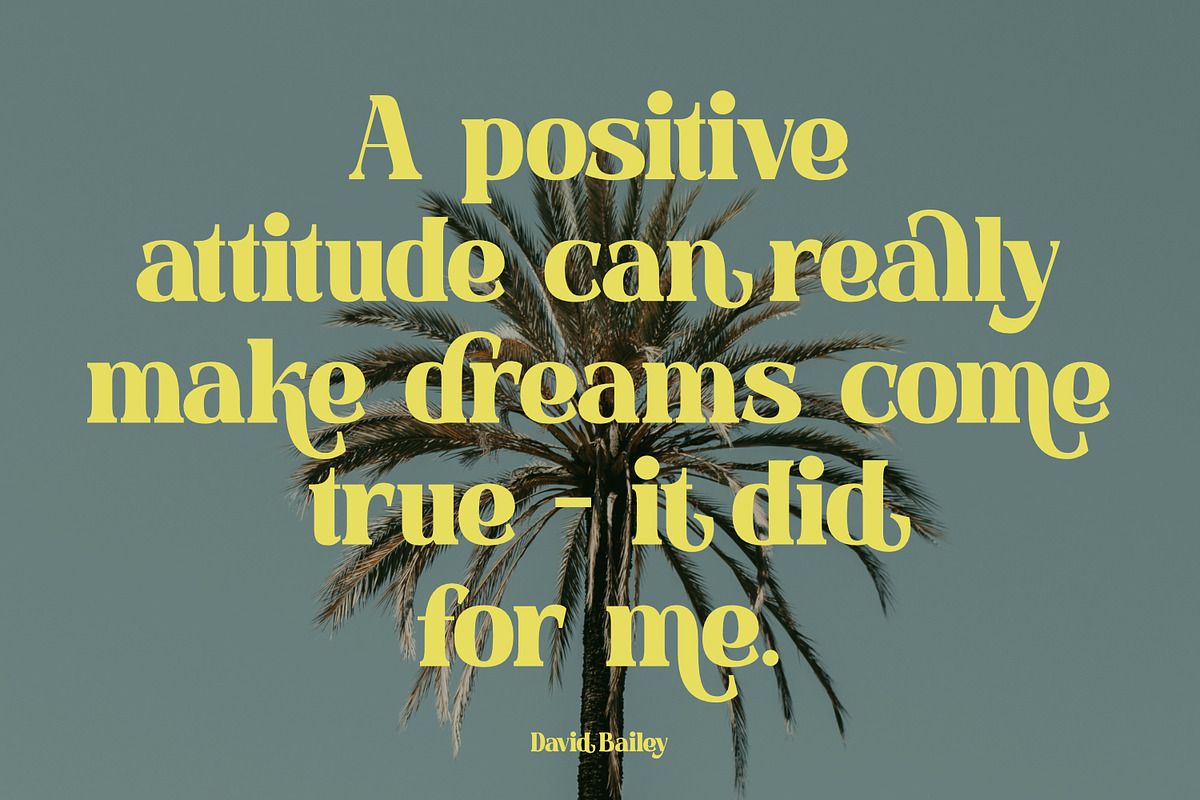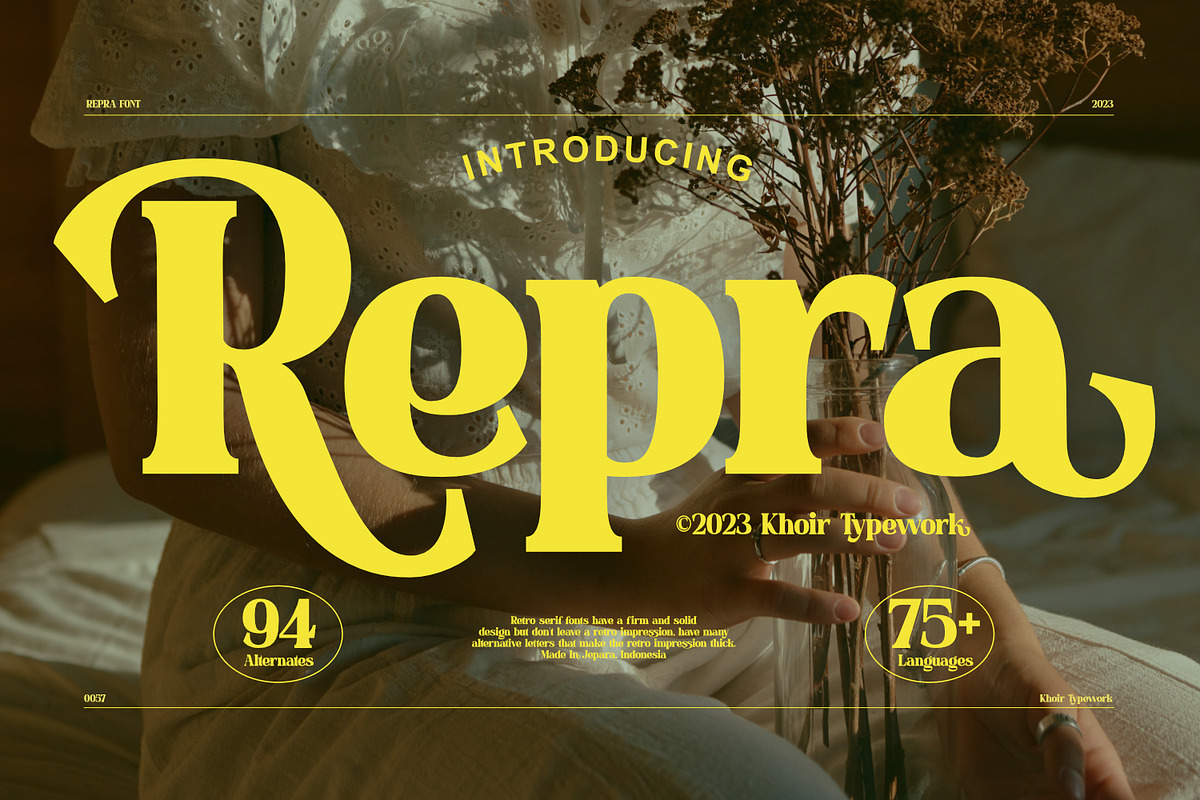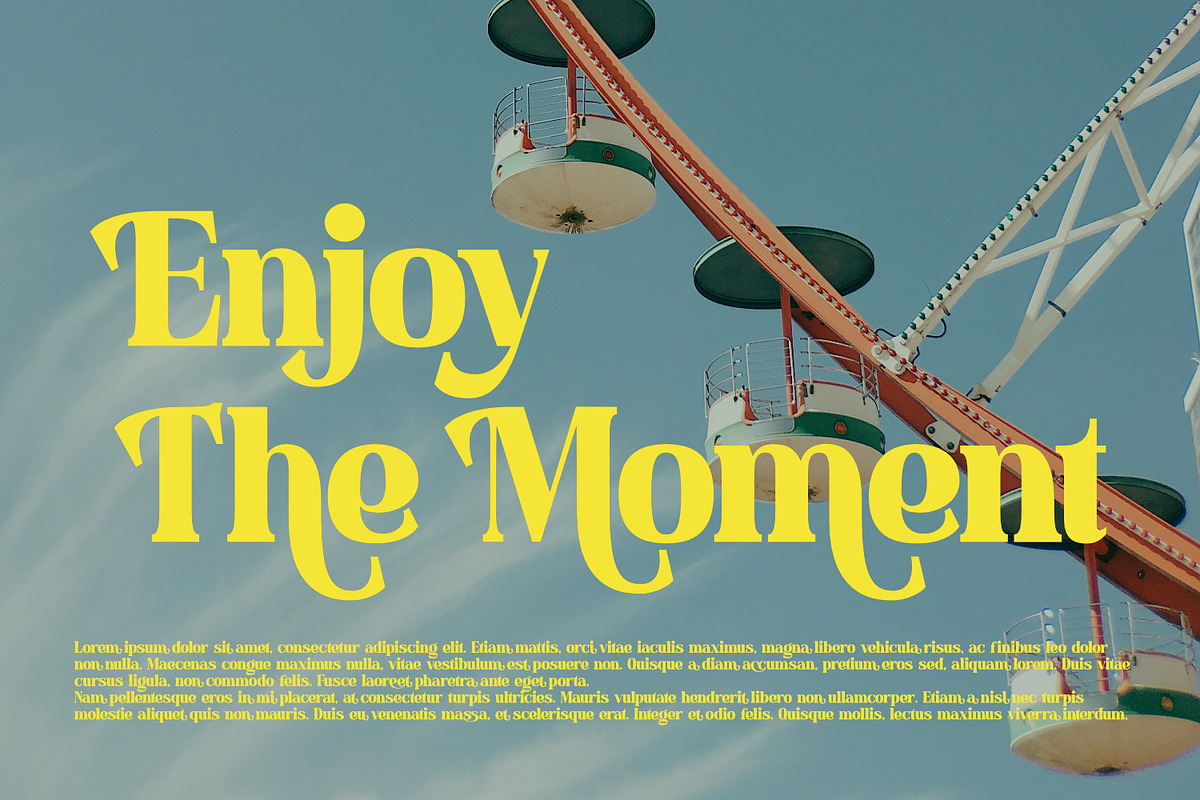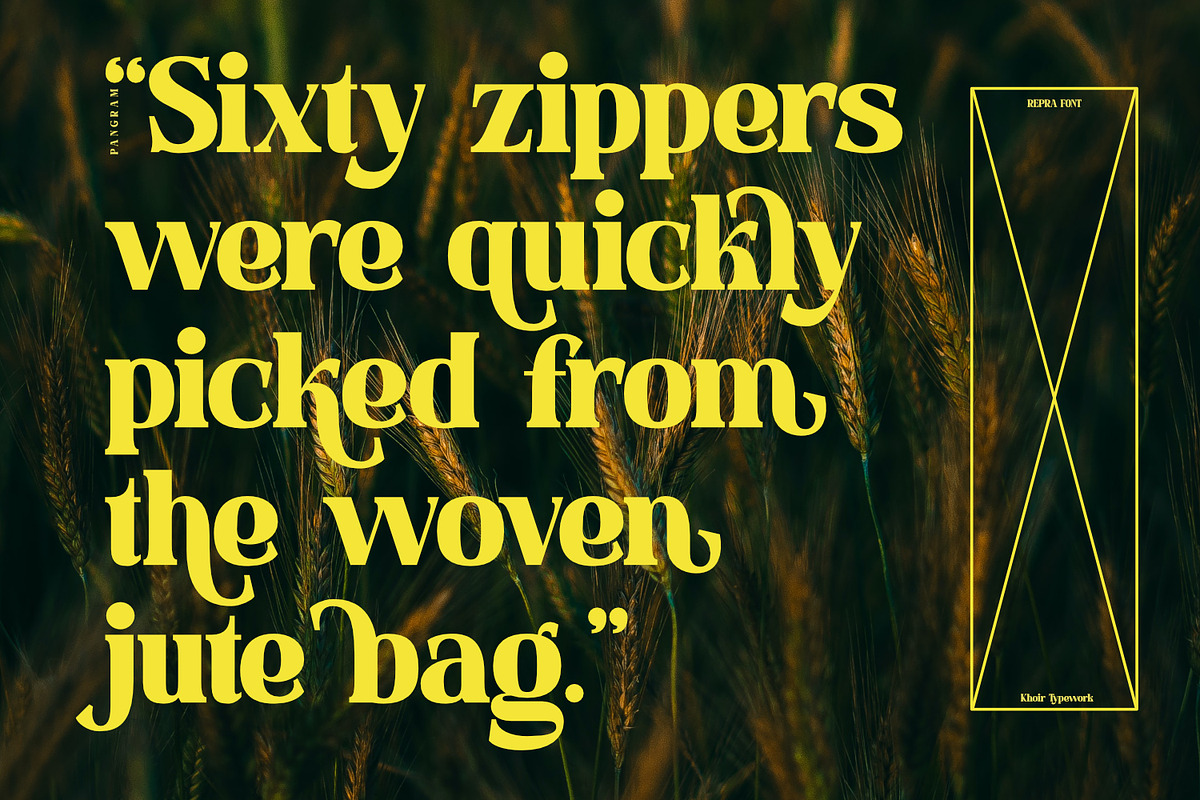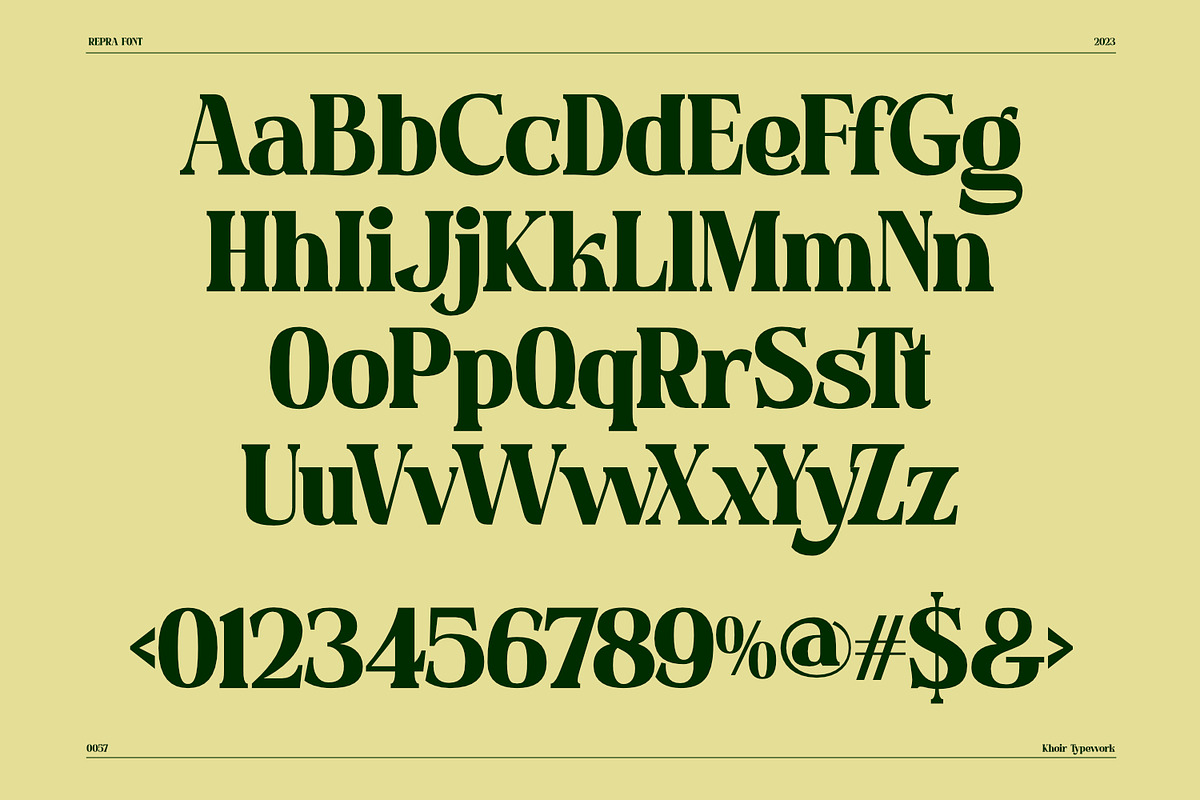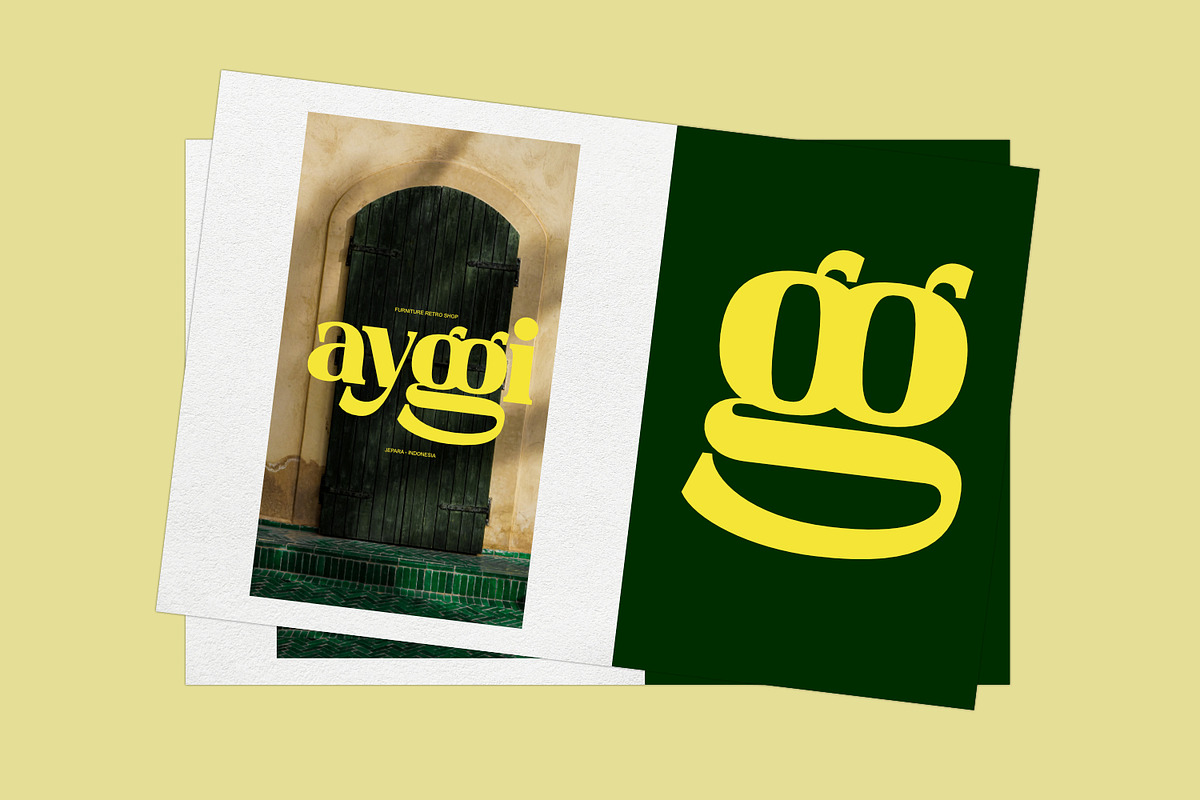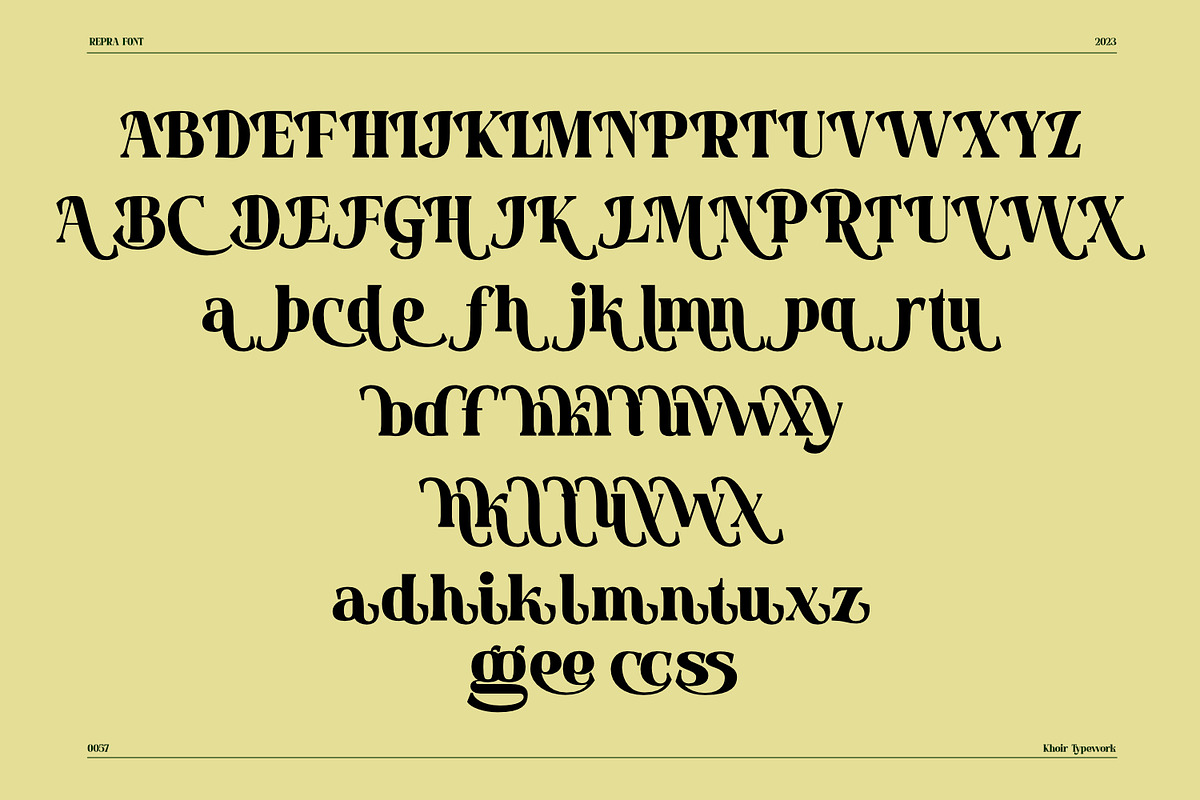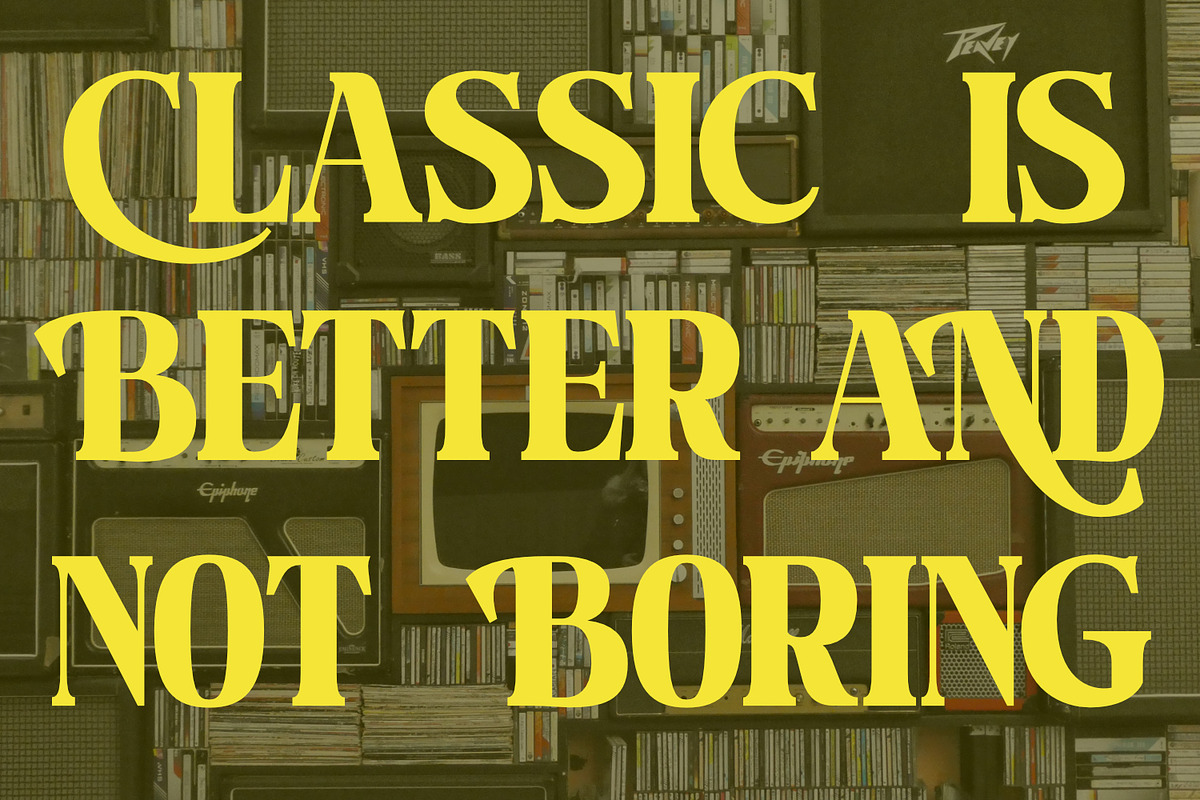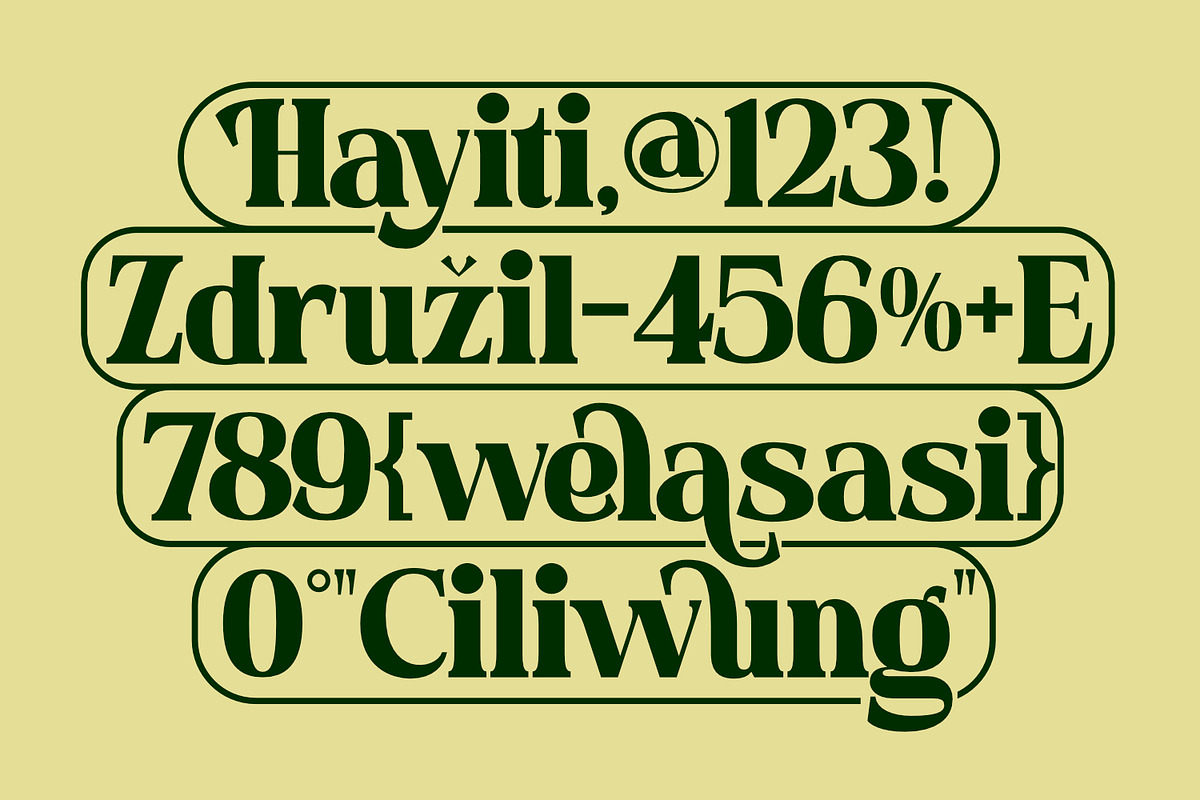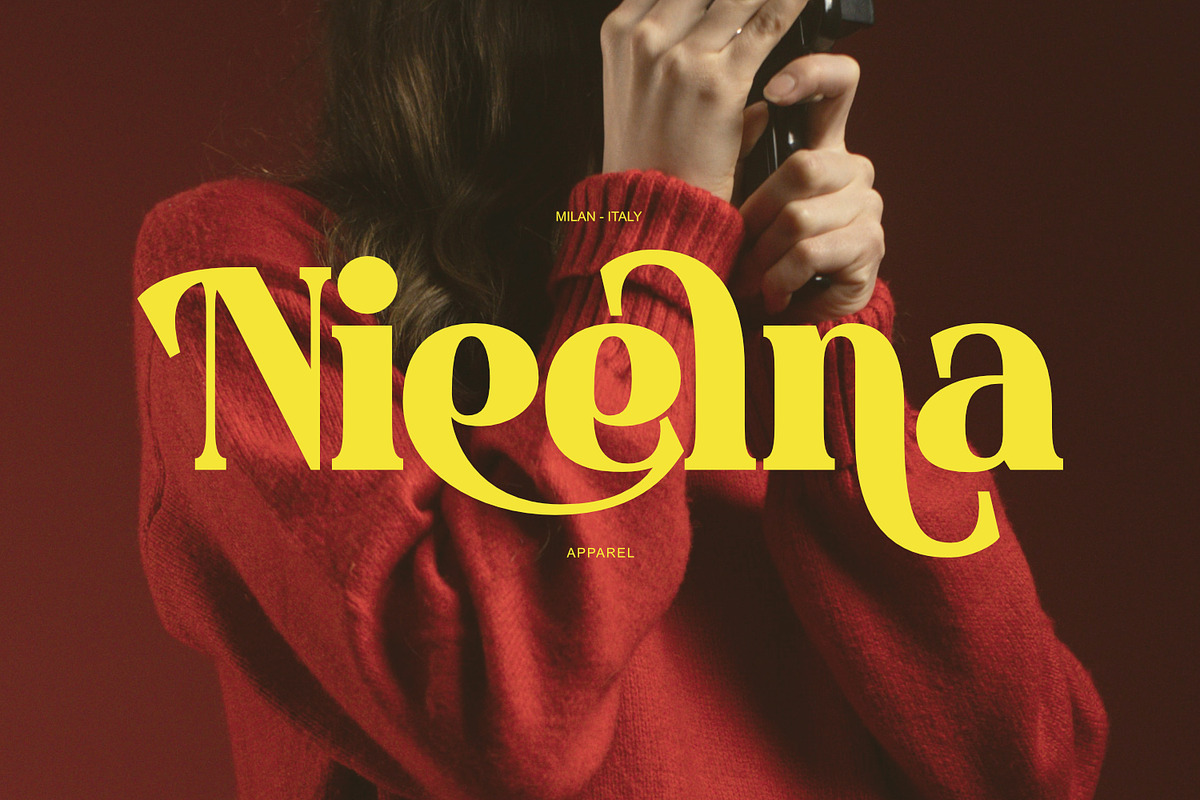
Repra - Retro Serif
The Repra font creates a vintage feel by adding alternative glyphs that create a retro style, ideal for those of you who want to bring a retro style to your work, with unique alternative glyphs that are perfect for posters, packaging projects, flayers or branding with a retro feel.
- 75+ Language
- Alternate & Ligature